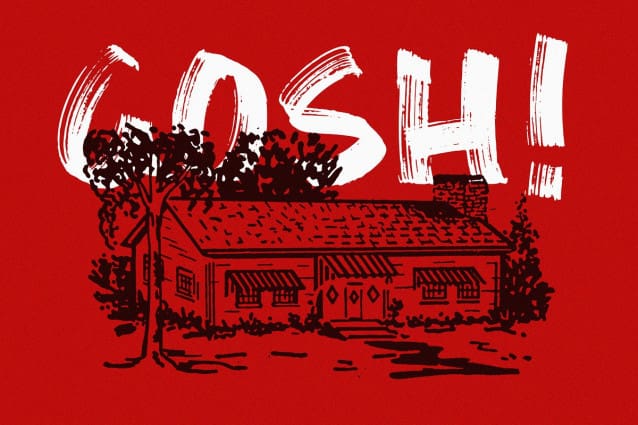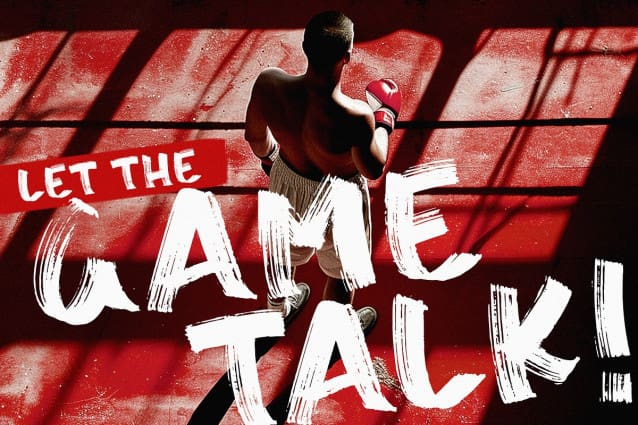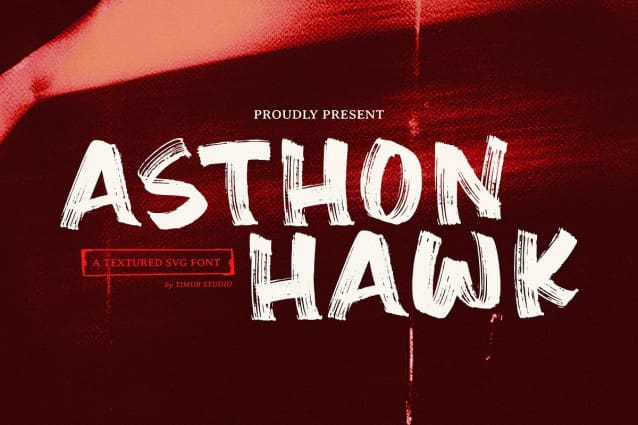
Asthon Hawk Font
Asthon Hawk Font. This font is a combines the flexibility of scalable vector graphics with intricate surface patterns, giving each character a unique, tactile quality. Ideal for eye-catching headlines and creative designs, these fonts feature rich textures—like grunge, fabric, or organic patterns—enhancing visual interest while maintaining sharpness at any size. Perfect for branding, posters, and digital art, textured SVG display fonts elevate typography to an art form, allowing designers to express personality and style in a striking way.